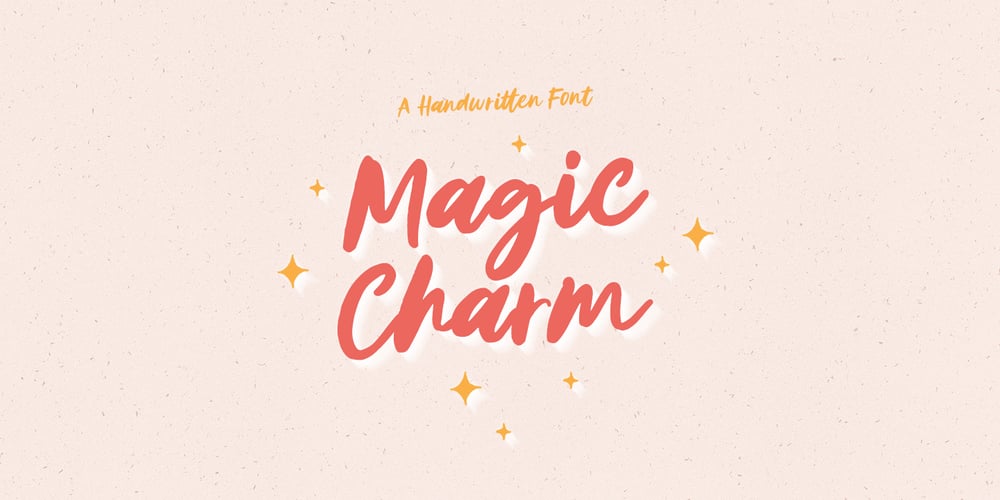
Magic Charm Font Family was designed by Dmitrii Chirkov and published by Supfonts. Magic Charm contains 1 styles and family package options. Magic Charm will be perfect for wedding lettering, beautiful frame for your home, book covers, greeting cards, logos, marketing, magazines or anything that requires cute handwritten lettering :)What’s inside:- Magic Charm Script- Multilingual support- Cricut supportIf you have any questions, please contact me directly or in instagram @superdizigner